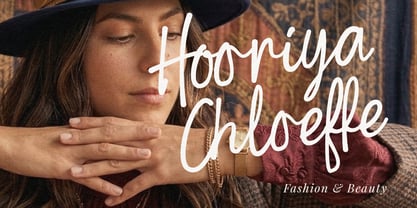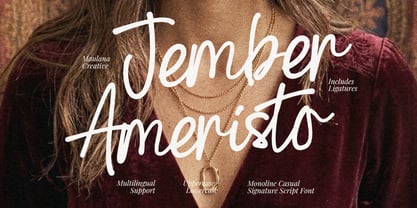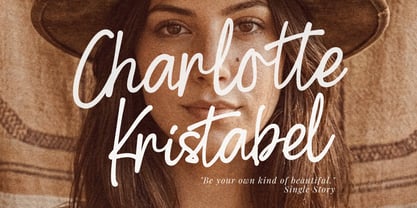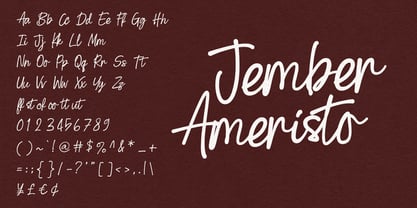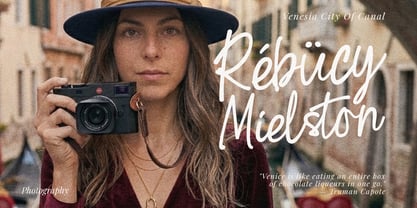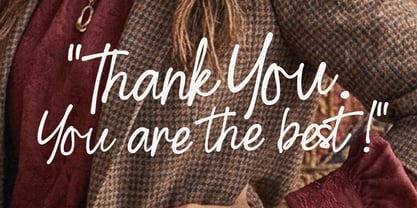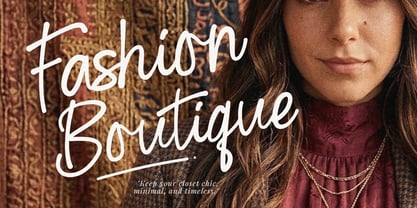
Jember Ameristo
by Maulana Creative
The Jember Ameristo Font Family was designed by Gilang Maulana and published by Maulana Creative. Jember Ameristo contains 1 styles. More about this family
Jember Ameristo is an elegant monoline script font that brings a casual yet sophisticated touch to any design work. Inspired by natural handwriting and fluid signature styles, this typeface features smooth, continuous strokes that flow effortlessly. Equipped with uppercase and lowercase letters, numerals, punctuations, and beautiful ligatures, it provides multi-language support to suit global design projects. It is an excellent choice for crafting upscale branding, chic logos, wedding invitations, social media graphics, editorial layouts, photography watermarks, and stylish advertisements. Elevate your creative projects with this timeless and charming signature script.
Designers: Gilang Maulana
Foundry: Maulana Creative